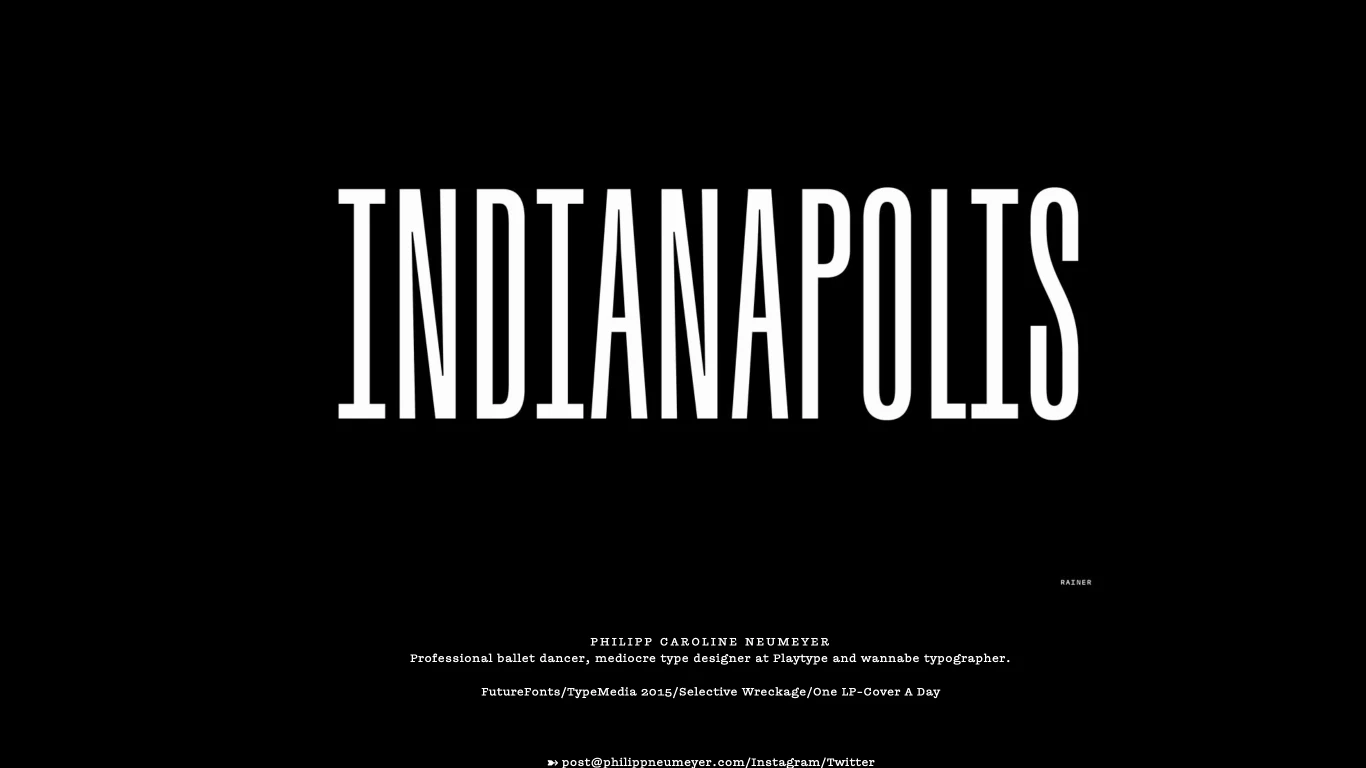
Rüdiger
Germany
2010
Philipp Neumeyer is a Berlin-based independent type designer who founded his namesake foundry after studying at Muthesius Academy and the TypeMedia course in The Hague. Since launching in the mid‑2010s, he's released standout retail typefaces like Norbert—a characterful grotesque inspired by St. Petersburg metal lettering—alongside Juneau, Ottessa, Elma, Yuni Slab, and more. Neumeyer offers both custom and retail fonts and has earned accolades like the Type Directors Club Ascenders award in 2018.